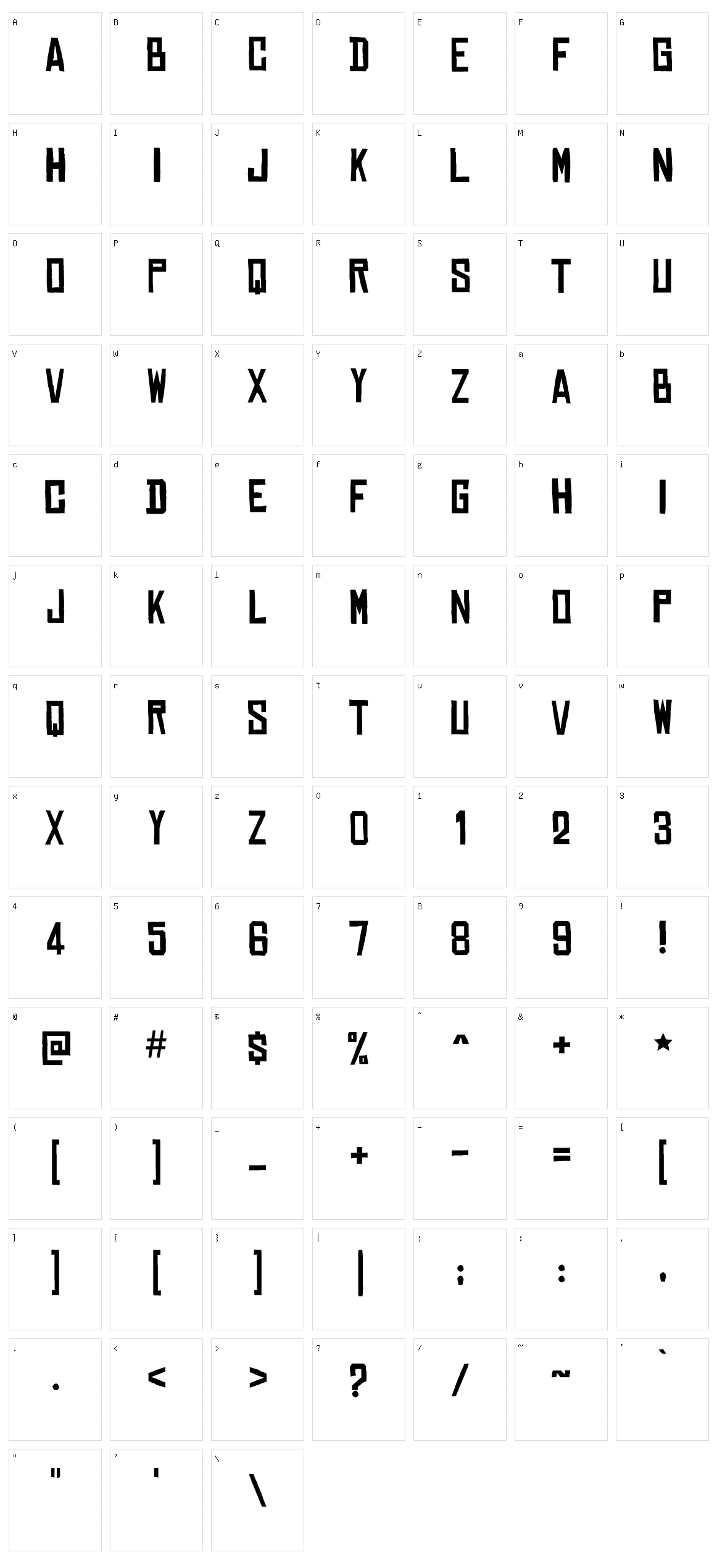
The free font Chinese Rocks is carefully designed by Typodermic Fonts, showcasing a thoughtful balance of creativity and usability and falls under the Distorted font style. When you download the ZIP file, it contains only 172.68 KB of font files, making it lightweight and quick to download. Please review the license details below to understand permitted usage and distribution rights. If license information is not available, we recommend using this font for personal projects only or contacting the author directly for commercial usage permissions.